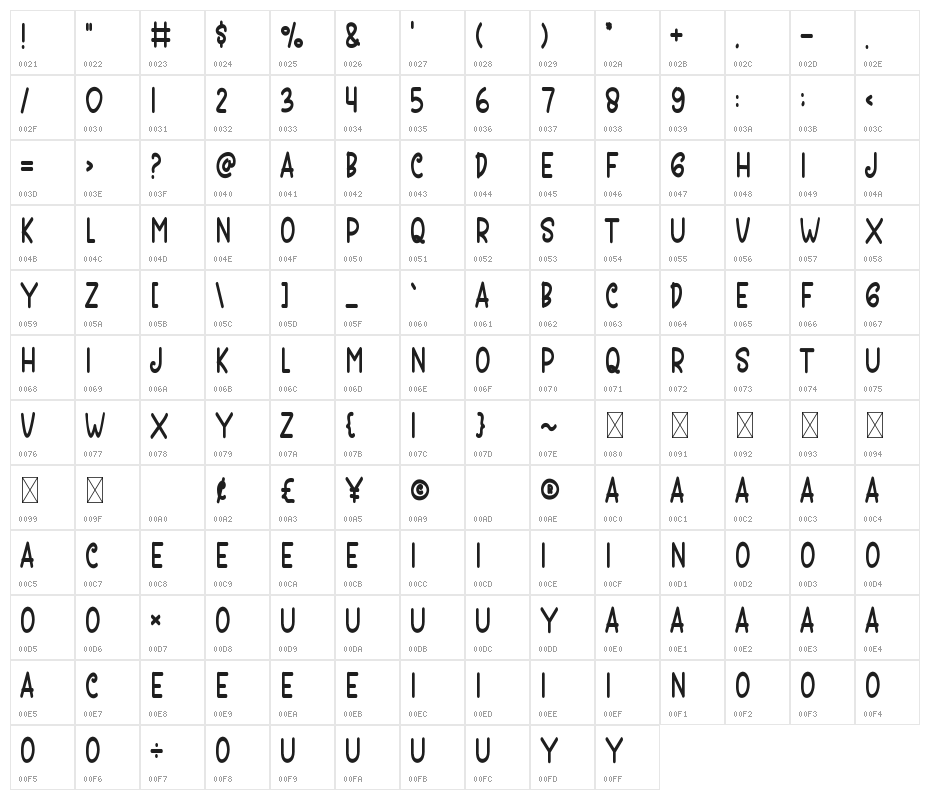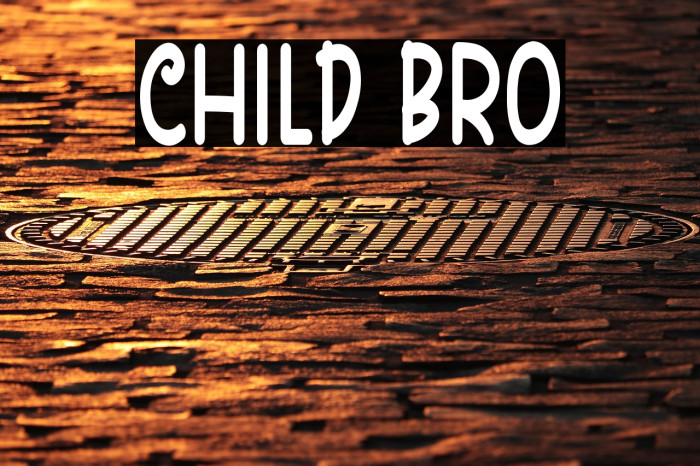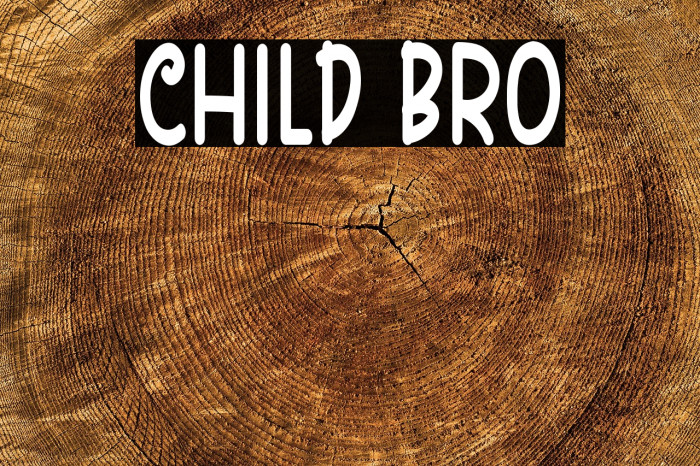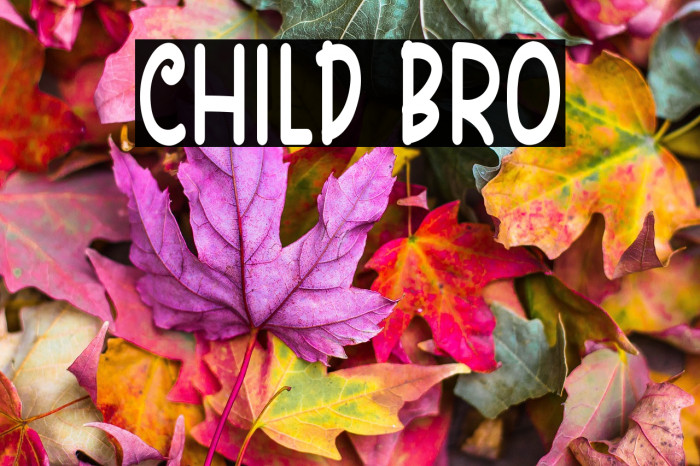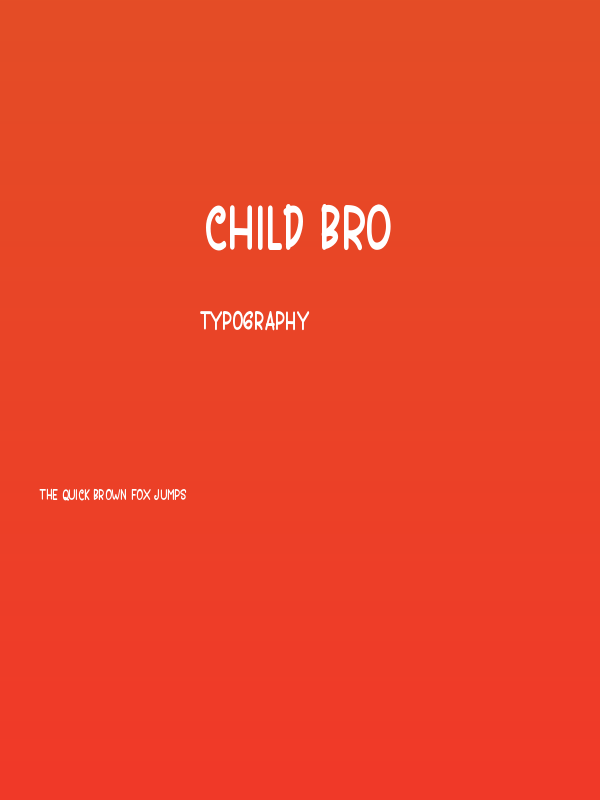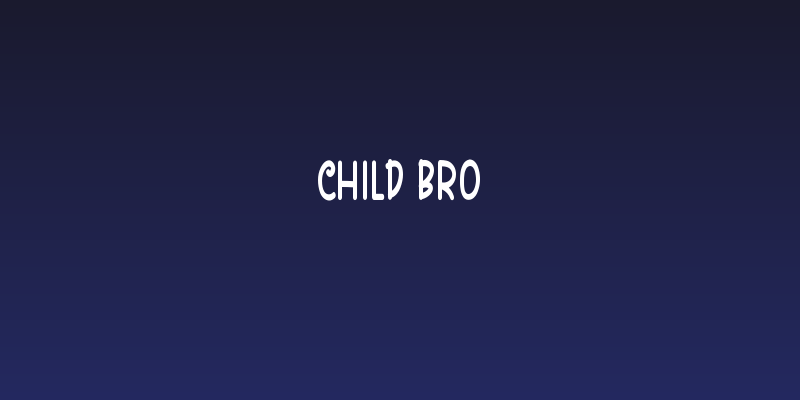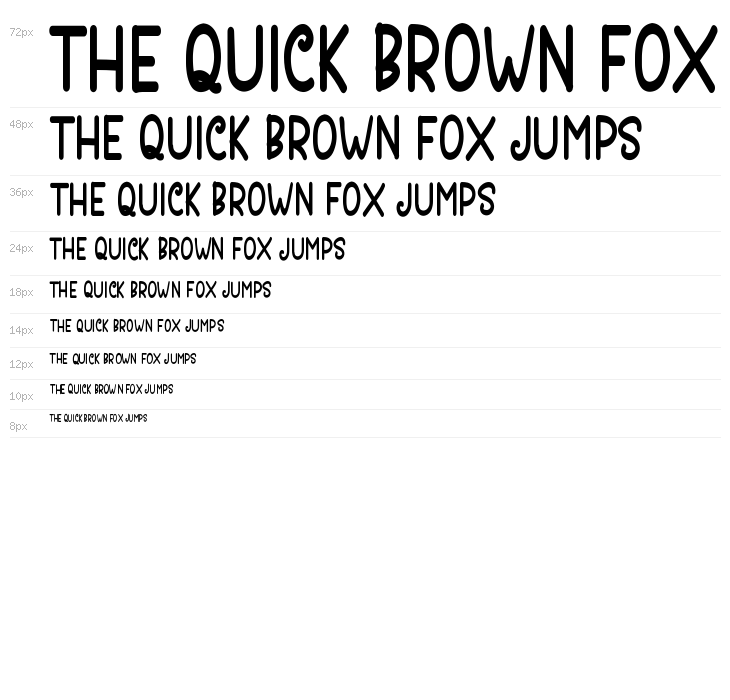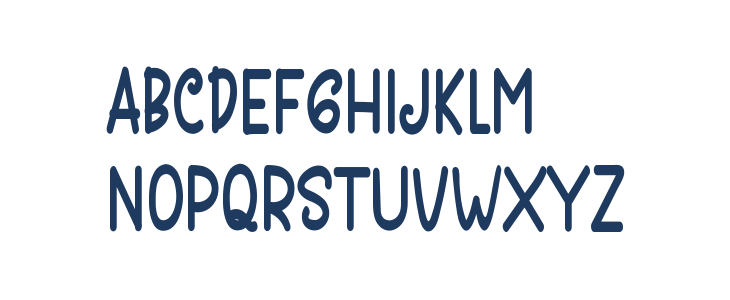
Child Bro Font
Child Bro Description
This playful and whimsical font features rounded, bold characters that evoke a sense of fun and creativity. The letters are slightly irregular, giving them a hand-drawn appearance that adds to their charm. The font maintains a consistent stroke width, ensuring readability while still conveying a casual, friendly vibe. Its unique style makes it perfect for projects aimed at children or those that require a lighthearted touch. The numerals and special characters are designed to match the playful aesthetic, ensuring a cohesive look across all text elements.
| Proposed Projects | Ideal for children's books, playful branding, educational materials, and creative posters. |